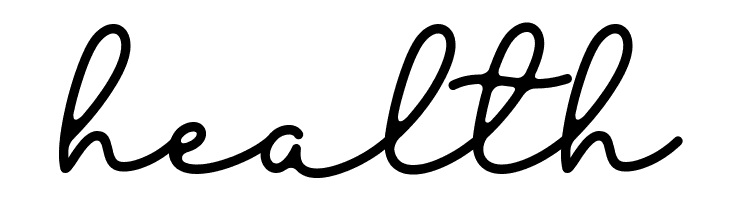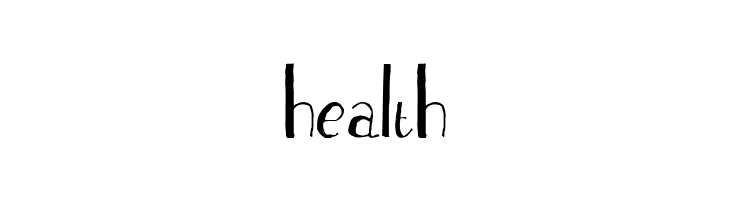
( Solidtype - bit.ly/2OxZn2V )
A sophisticated script font with flowing, interconnected characters and elegant flourishes.
( Sronstudio - Yusron Billah )
An elegant, cursive font with flowing, interconnected letters and dynamic contrast.
( Sronstudio - Yusron Billah )
A fluid and elegant script font with graceful, flowing letterforms.
( Sronstudio - Yusron Billah )
An elegant and flowing script font with graceful curves and loops.
( Sronstudio - Yusron Billah )
A cursive, handwritten-style font with elegant, flowing characters.
( Stasia Popova )
A playful, hand-drawn font with an artistic and whimsical style.
( Sudar Moko )
A bold, high-contrast font with a modern and impactful style.
( Syahputra - creativemarket.com/Bexxtype )
A graceful, elegant script font with flowing, interconnected letters.
( Syahputra - creativemarket.com/Bexxtype )
An elegant script font with flowing, cursive letters and high contrast.
( Syahputra - creativemarket.com/Bexxtype )
An elegant script font with intricate loops and flowing design, perfect for luxury branding.